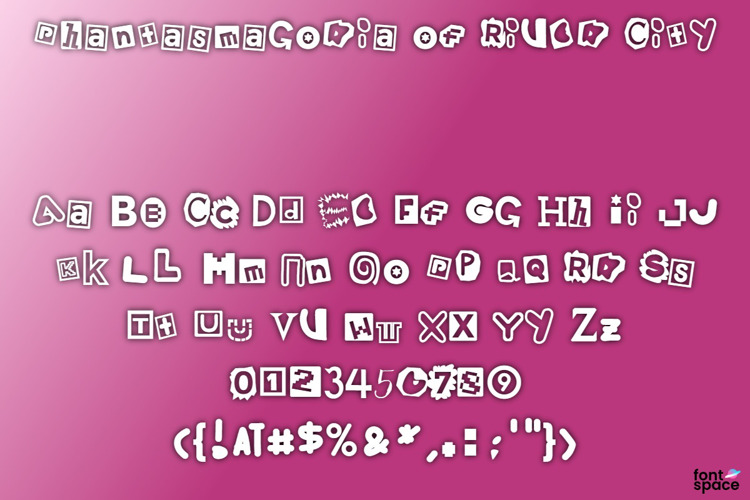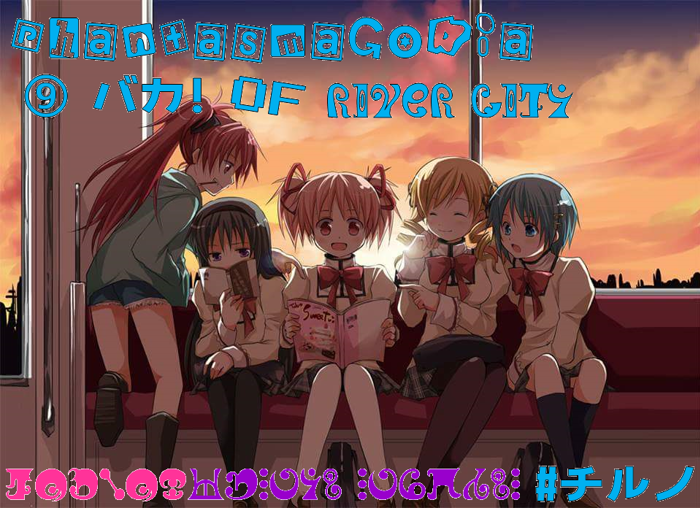
Phantasmagoria of River City Font
This font is made out of Heaven's fonts and anyone's fonts(in as well as the Madoka Magica logo font and the bitmap fonts included on).
Hence the name, the game names Phantasmagoria of Flower View(a Touhou game) and River City Ransom(Developed by Technos Japan Corp.) combined together.